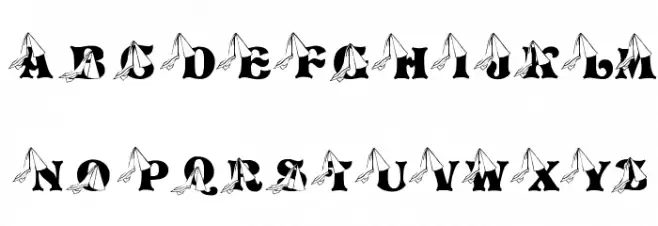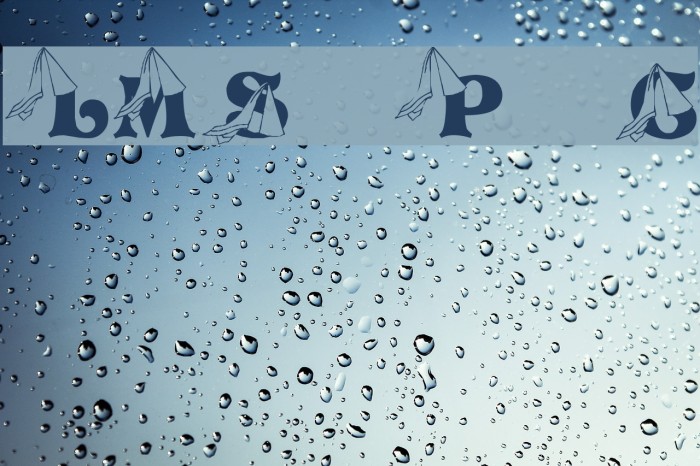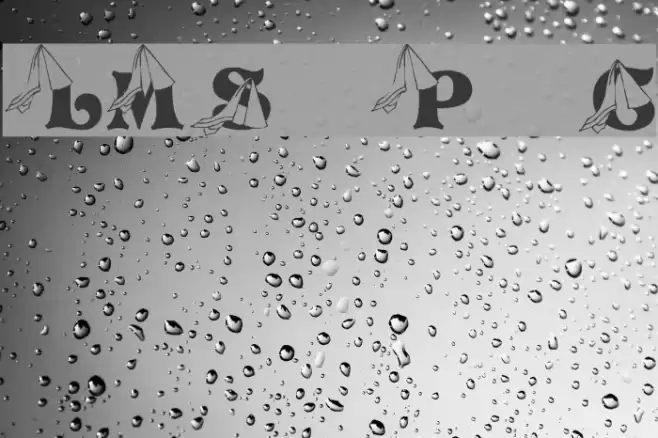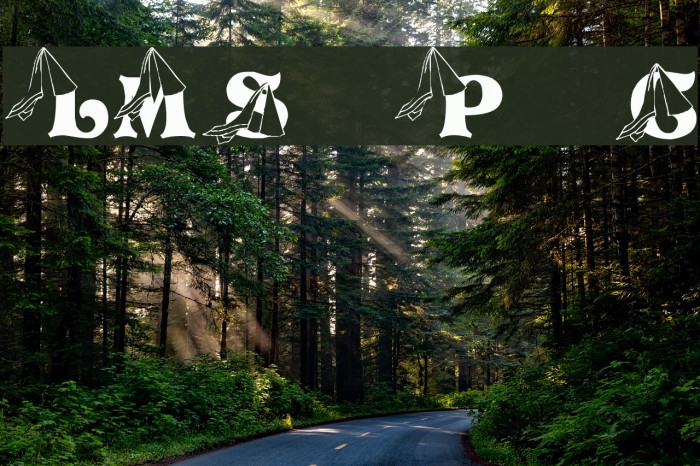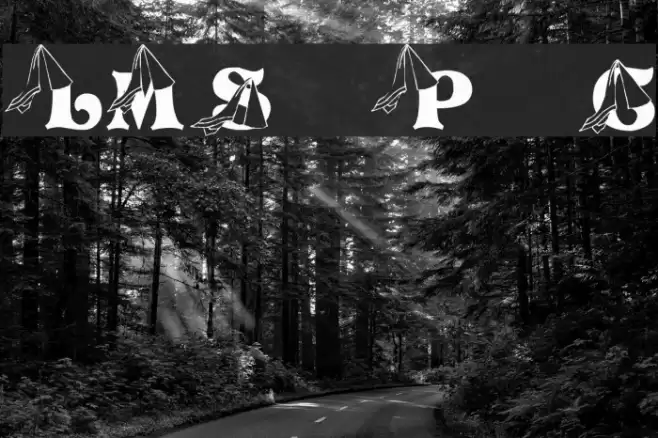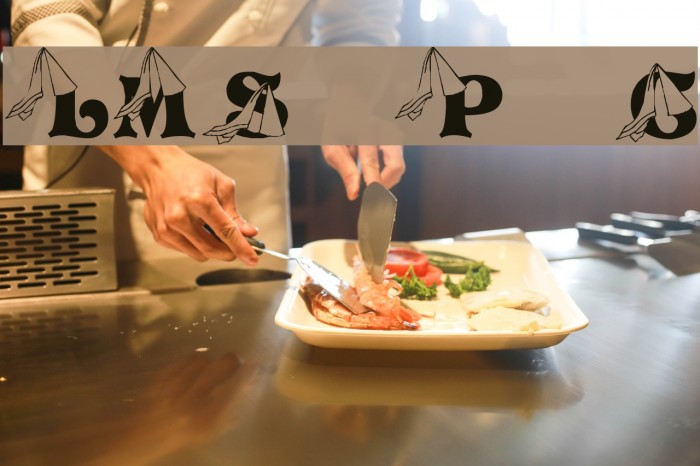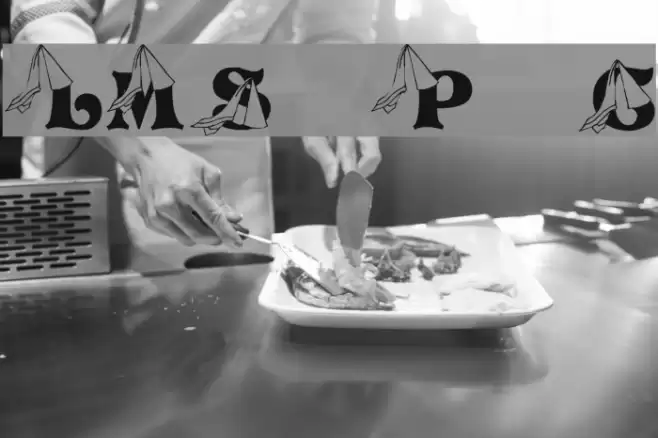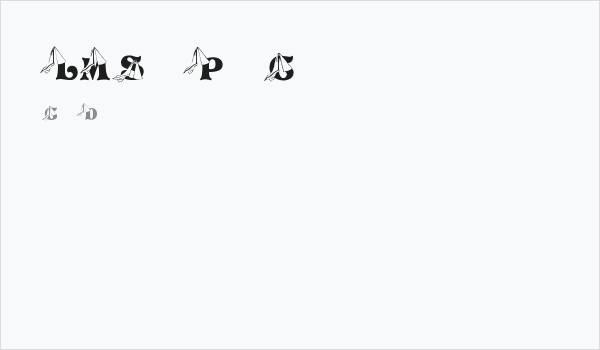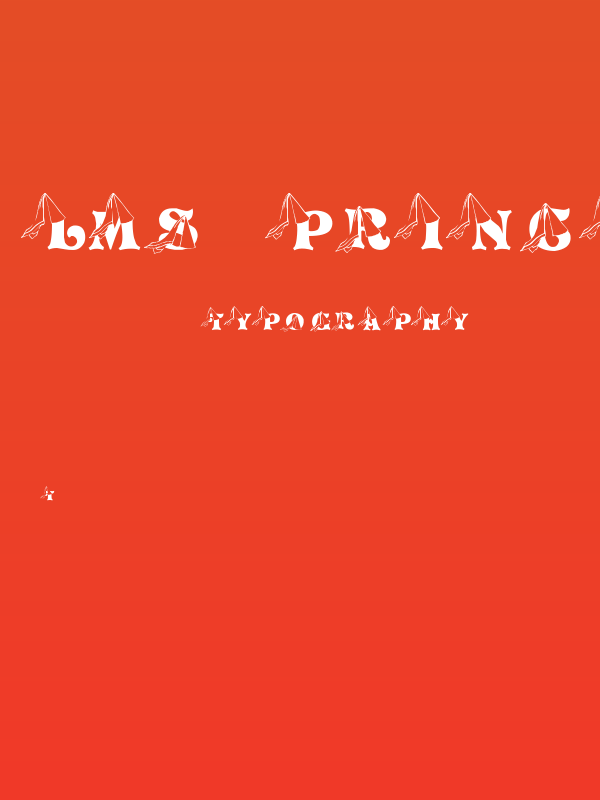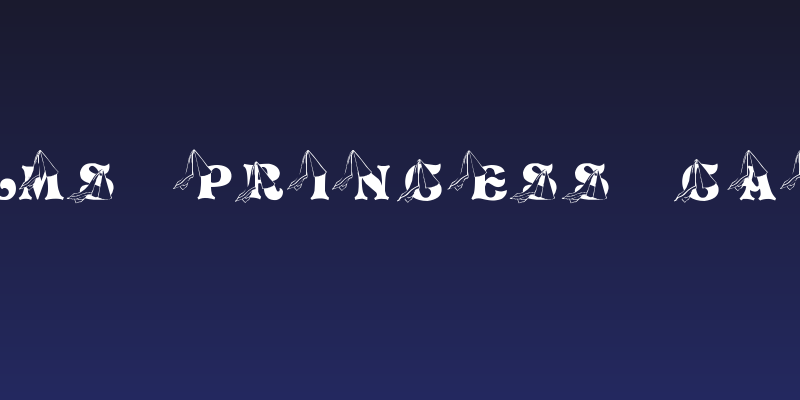
LMS Princess Cap Font
LMS Princess Cap Description
This font features an ornate and decorative style, with each letter adorned by intricate, flowing elements resembling fabric or ribbon. The uppercase letters are bold and eye-catching, making them ideal for creating a whimsical and elegant aesthetic. The design incorporates a sense of movement and grace, with the embellishments adding a touch of fantasy and charm. This font is particularly suited for projects that require a touch of sophistication and creativity, such as invitations, branding, or themed events. The unique design elements make it stand out, providing a distinctive look that captures attention.
| Proposed Projects | Ideal for wedding invitations, fantasy-themed branding, elegant posters, and creative event materials. |